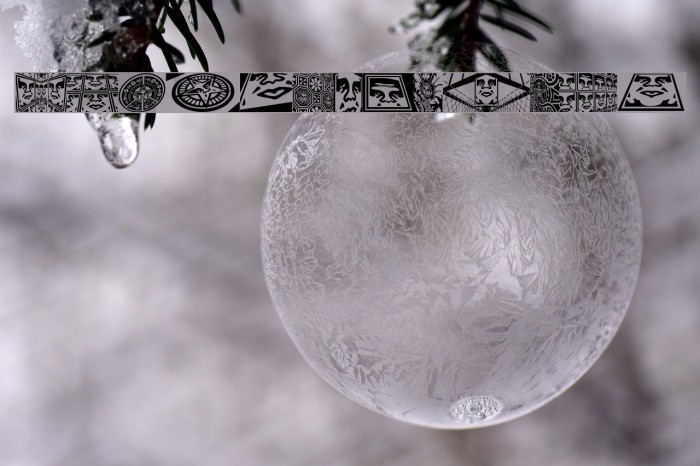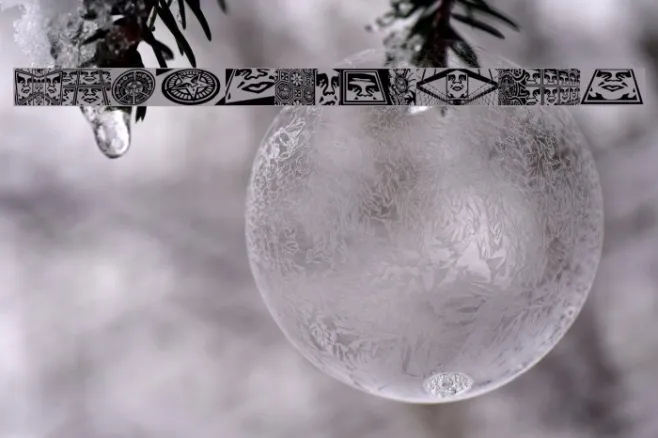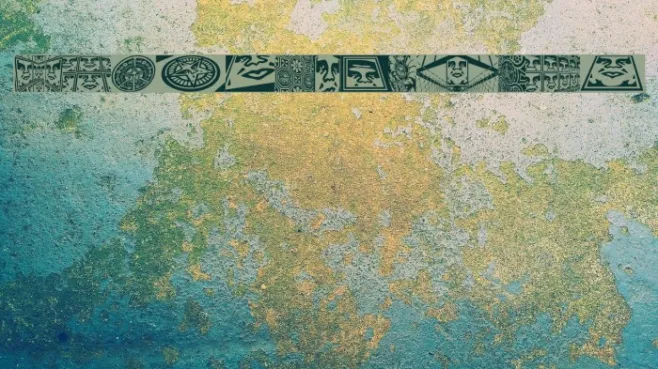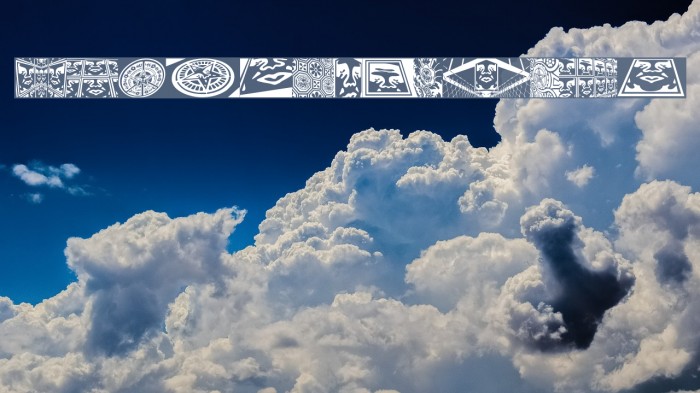
Obey3D Font
Obey3D Description
This is not a traditional font but rather a collection of graphic symbols and illustrations. Each character is represented by a unique and intricate design, often featuring bold, abstract, or iconic imagery. The designs are highly detailed, with a strong emphasis on visual impact and artistic expression. The style is reminiscent of street art and propaganda posters, with a focus on bold lines and contrasting elements. The imagery often includes faces, patterns, and symbolic elements, creating a visually striking and memorable aesthetic.
| Use Case | Logos, Posters, Artistic Projects |
| Proposed Projects | Ideal for artistic projects, posters, album covers, or any design work that requires a bold and unique visual statement. |